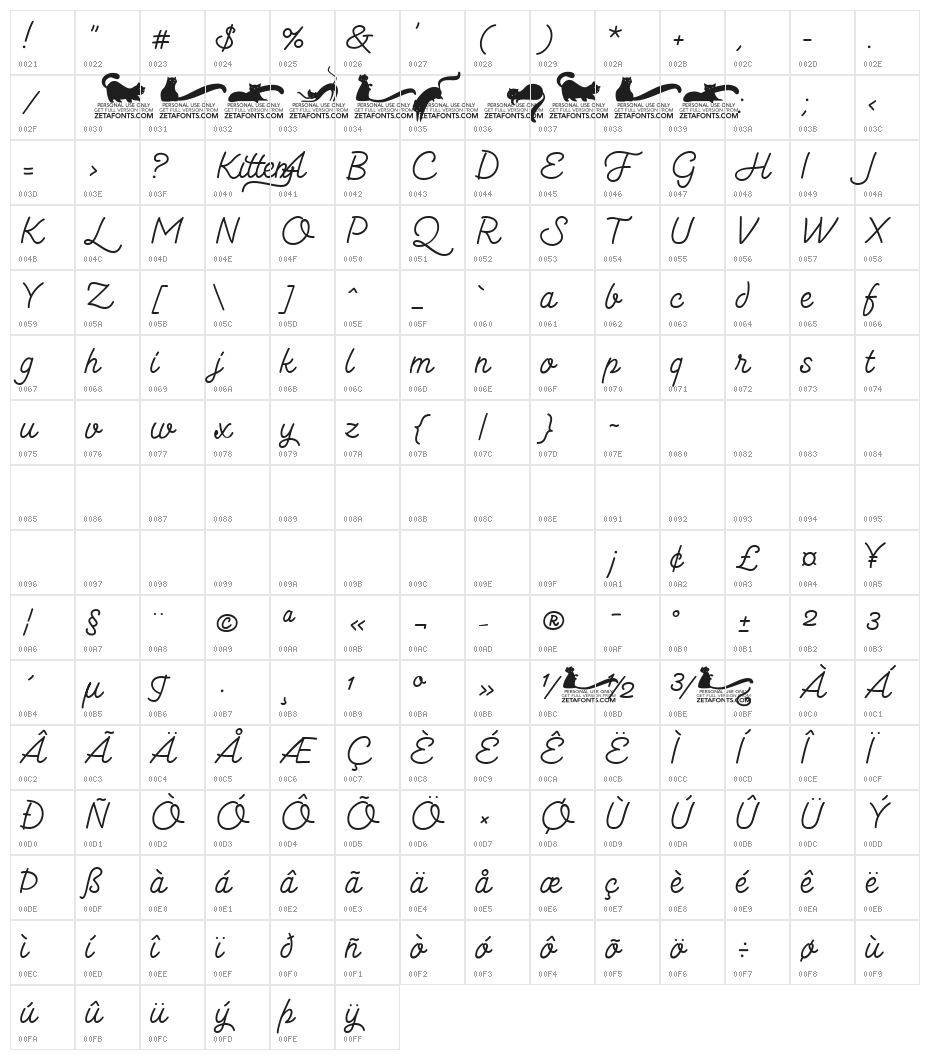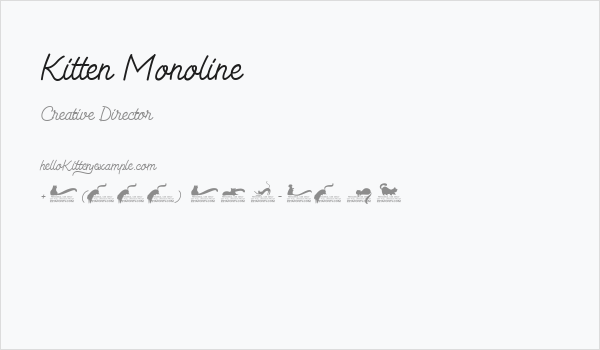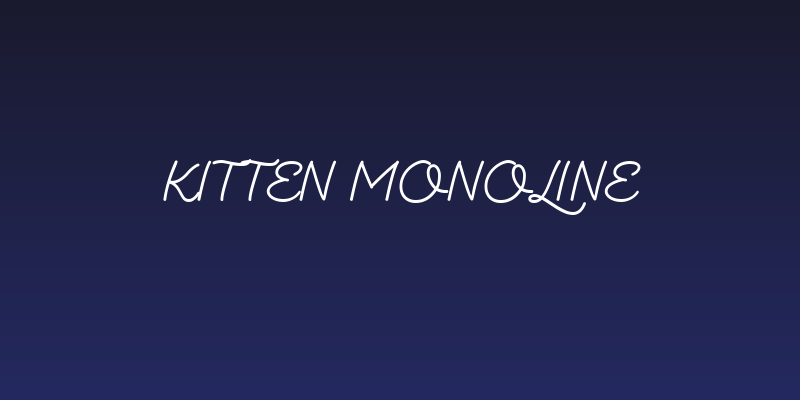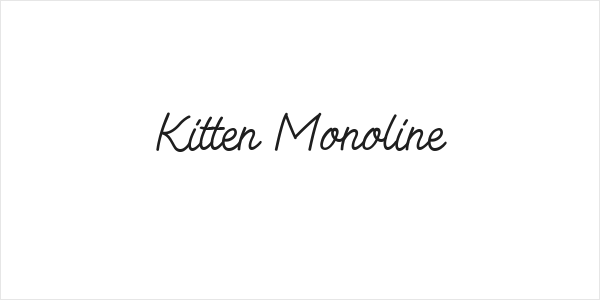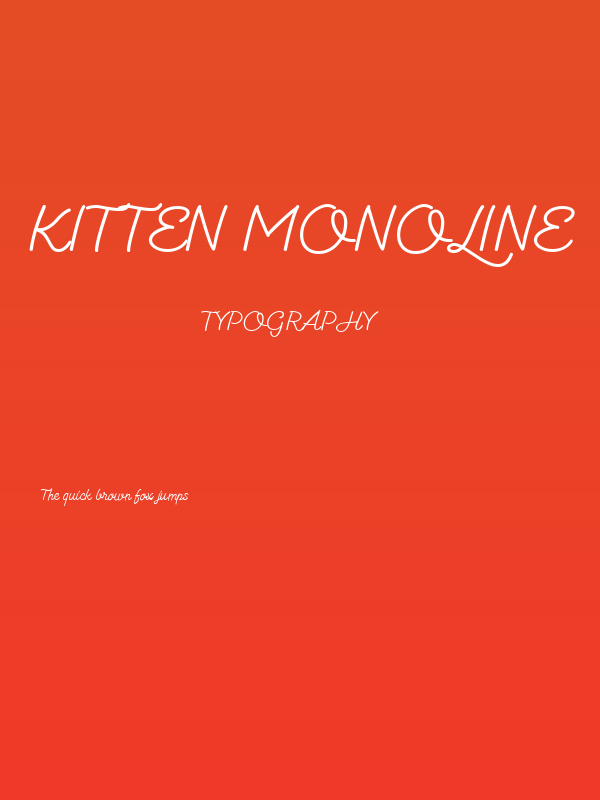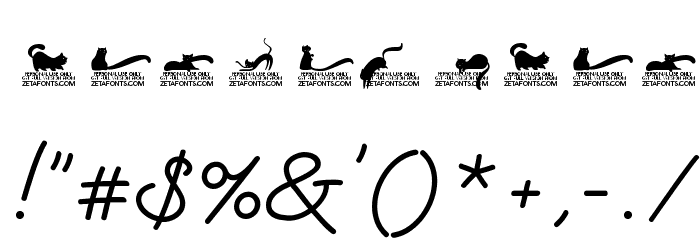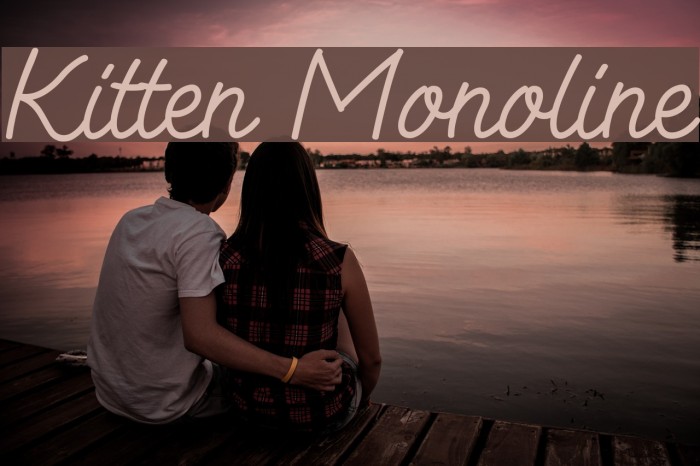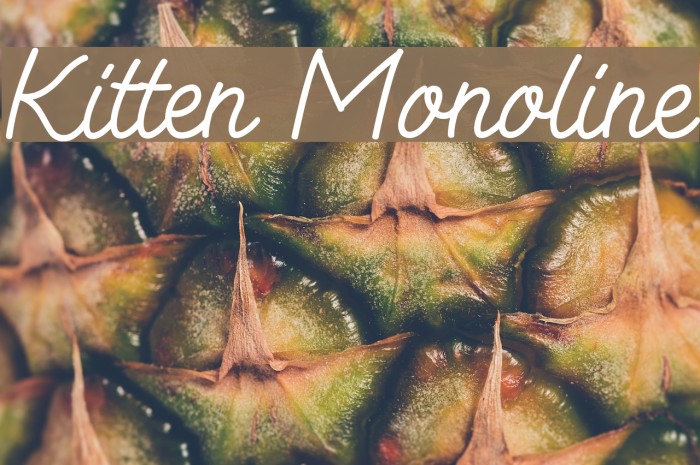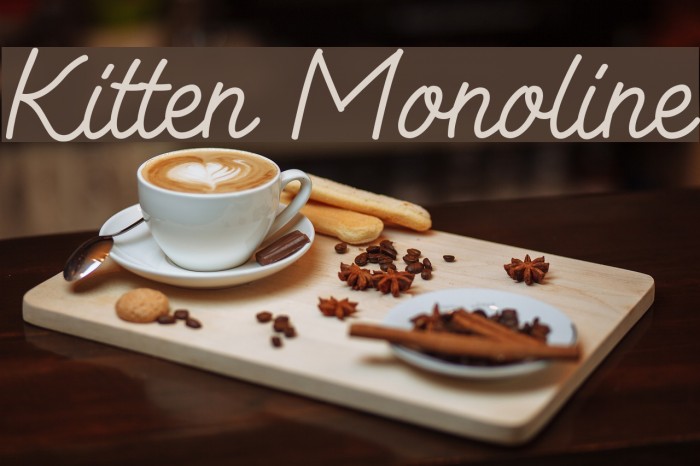
Kitten Monoline Font
Kitten Monoline Description
This font features a playful and elegant monoline script style, characterized by smooth, flowing lines that mimic the fluidity of handwriting. The uppercase letters are slightly more structured, while the lowercase letters exhibit a charming, casual flair. The consistent stroke width throughout the characters gives it a cohesive and harmonious appearance. The font includes a full set of uppercase and lowercase letters, numerals, and a variety of special characters, making it versatile for different design needs. Its whimsical yet sophisticated look makes it suitable for projects that require a touch of personality and warmth.